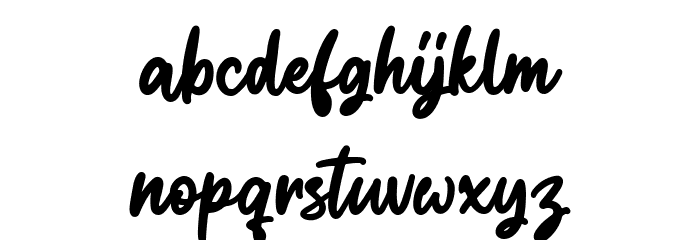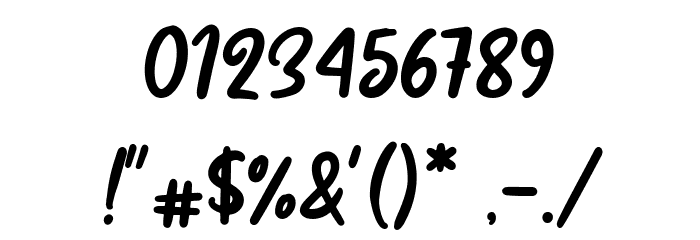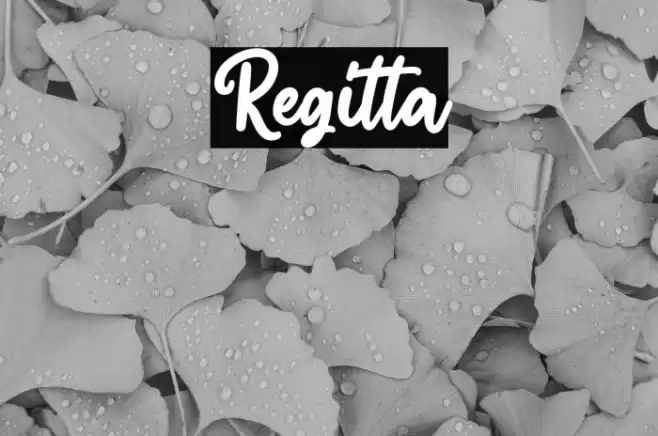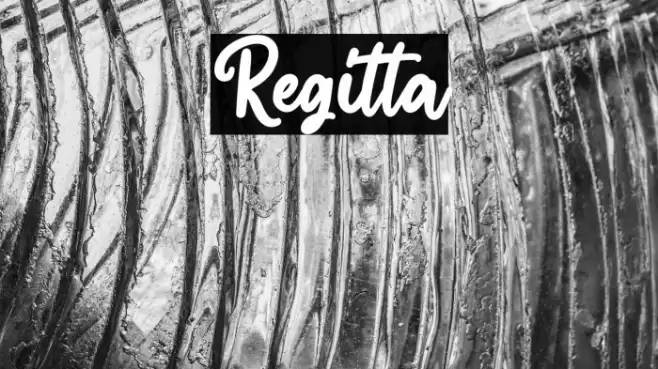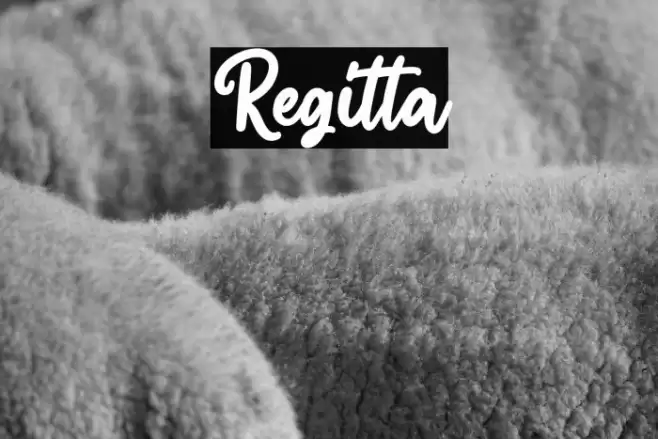
Regitta Font
This font features a lively and flowing script style, characterized by its smooth, connected letters that mimic natural handwriting. The uppercase letters are bold and slightly slanted, adding a dynamic and energetic feel. The lowercase letters maintain a consistent flow, with rounded edges and a playful bounce. Numbers and special characters are designed to match the overall cursive aesthetic, ensuring a cohesive look across all text elements. The font's design is both elegant and approachable, making it suitable for a variety of creative projects.
A lively, flowing script font with a natural handwriting style.
- Proposed Projects: Ideal for wedding invitations, greeting cards, branding projects, and social media graphics.
- Category: Script
- Use Case: Logos, Headlines, Invitations